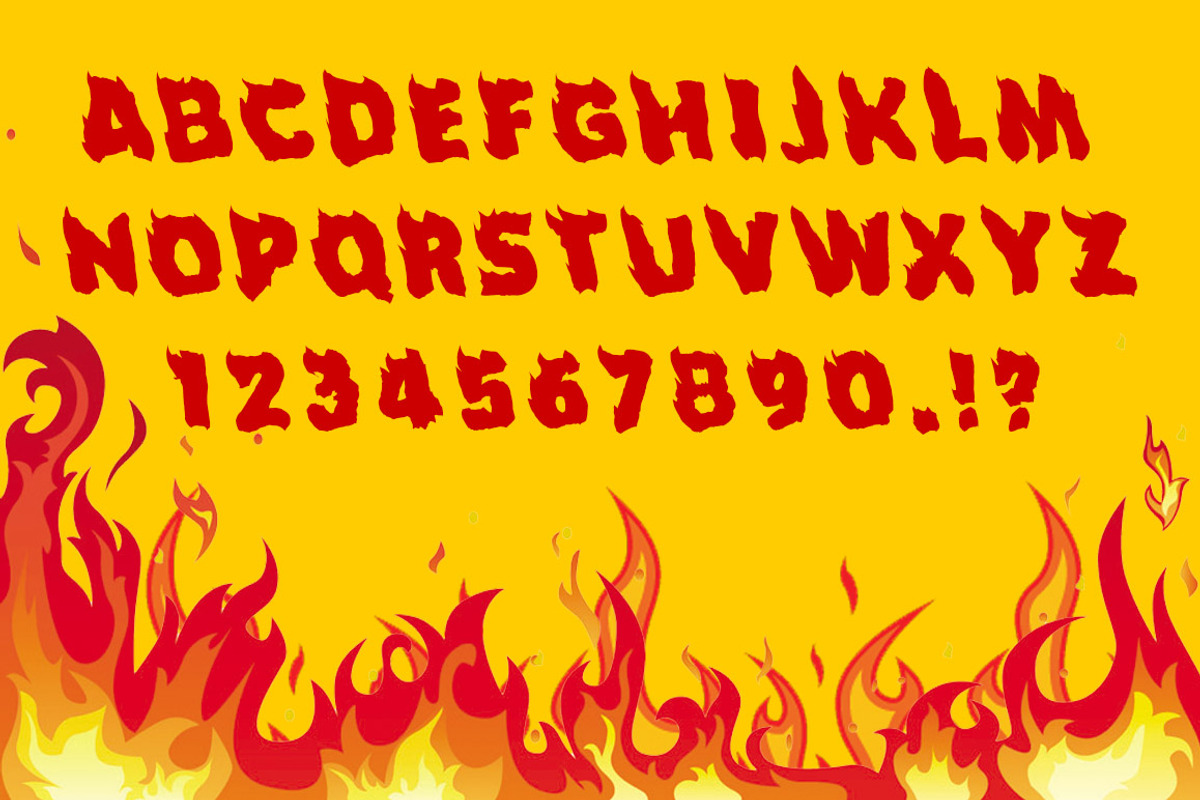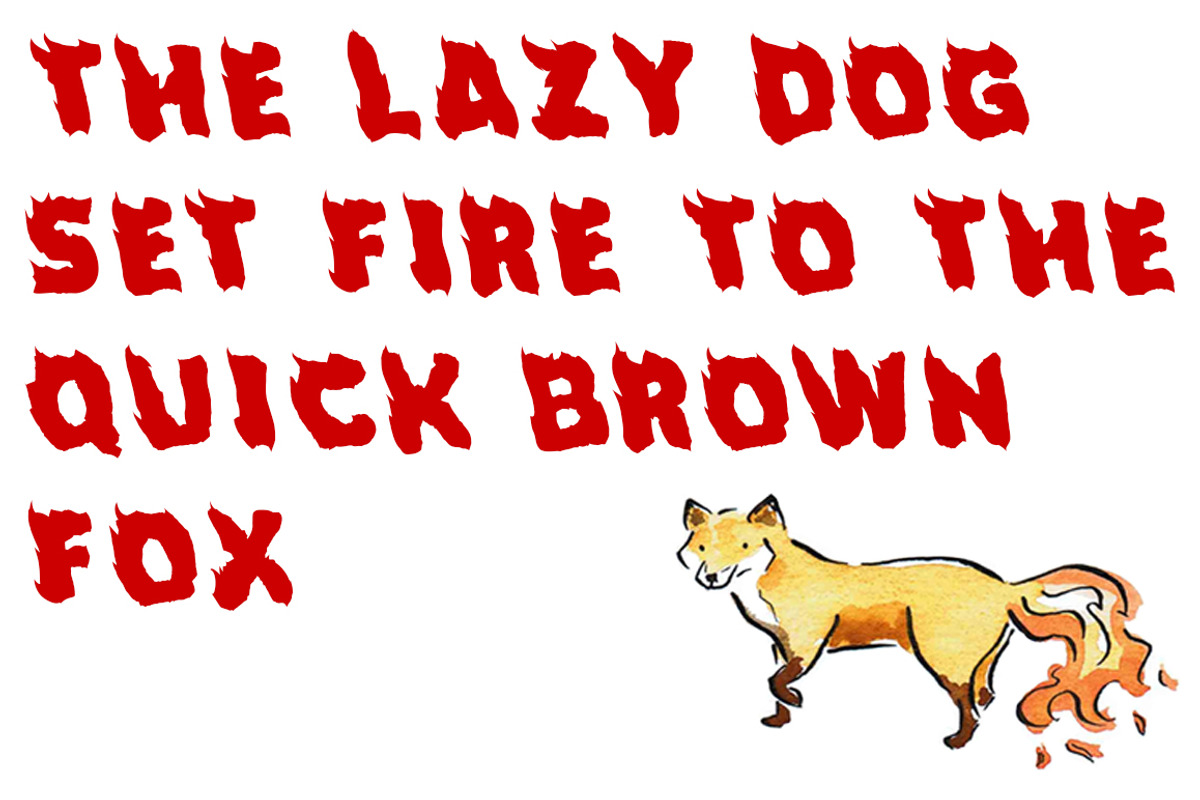
Fuego - A Fun and Fiery Font
Fuego - A Fun and Fiery Font by Blue Line Design is a font selected for branding, posters, packaging, typography.
Why Fuego - A Fun and Fiery Font is worth a look
Fuego - A Fun and Fiery Font by Blue Line Design fits naturally into Branding, posters, packaging, typography.